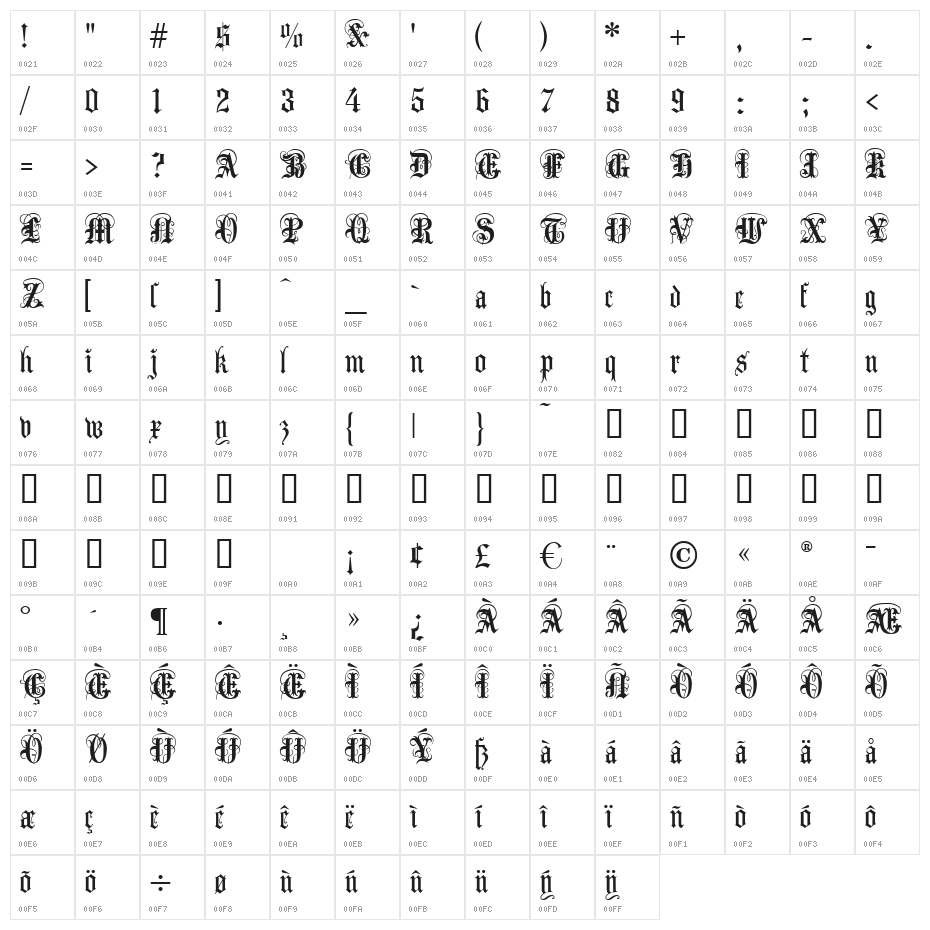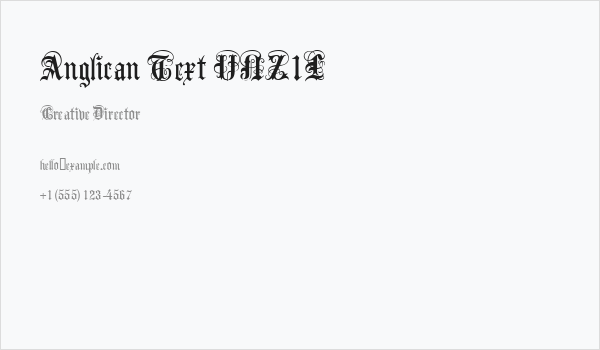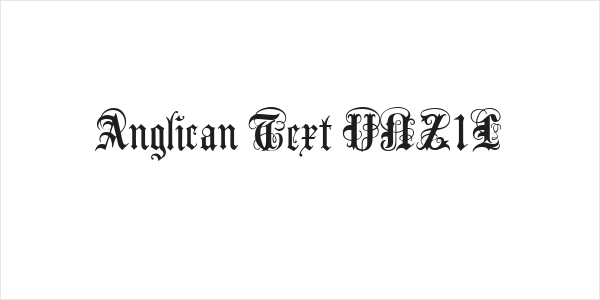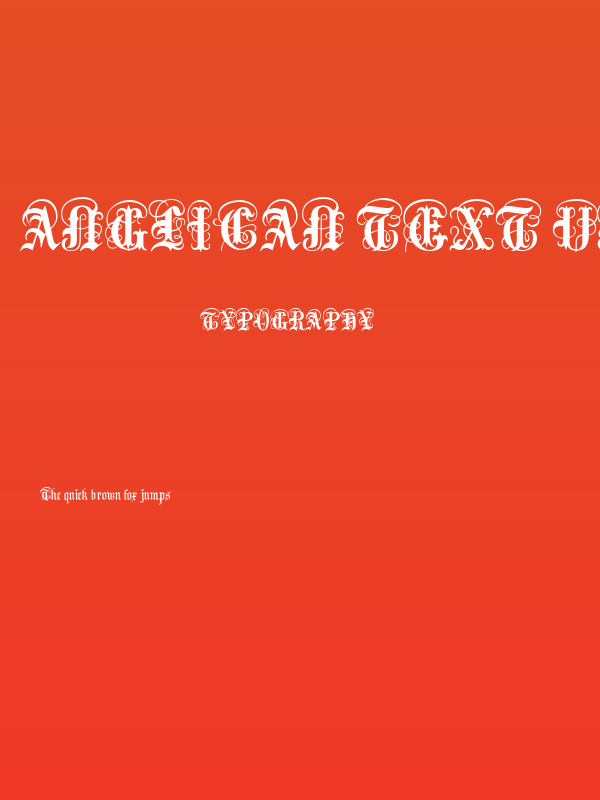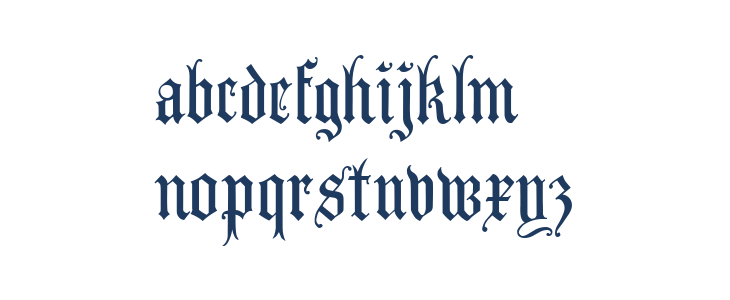
Anglican Text UNZ1L Font
Anglican Text UNZ1L Description
This font features a traditional blackletter style, characterized by its intricate and ornate design. The uppercase letters are highly decorative, with elaborate flourishes and sharp, angular strokes that give it a historic and gothic appearance. The lowercase letters maintain the same level of detail, with a consistent stroke weight that adds to the font's bold presence. The numerals are similarly styled, with a strong and commanding look. Special characters are crafted with the same attention to detail, ensuring a cohesive aesthetic throughout. This font is ideal for projects that require a touch of medieval or gothic flair, making it suitable for historical documents, themed events, or branding that seeks to evoke a sense of tradition and elegance.
Overall StyleGothic, Traditional
Use CaseHeadlines, Logos, Decorative text
Proposed ProjectsIdeal for historical documents, themed event invitations, gothic-themed branding, or any project seeking a traditional and ornate aesthetic.